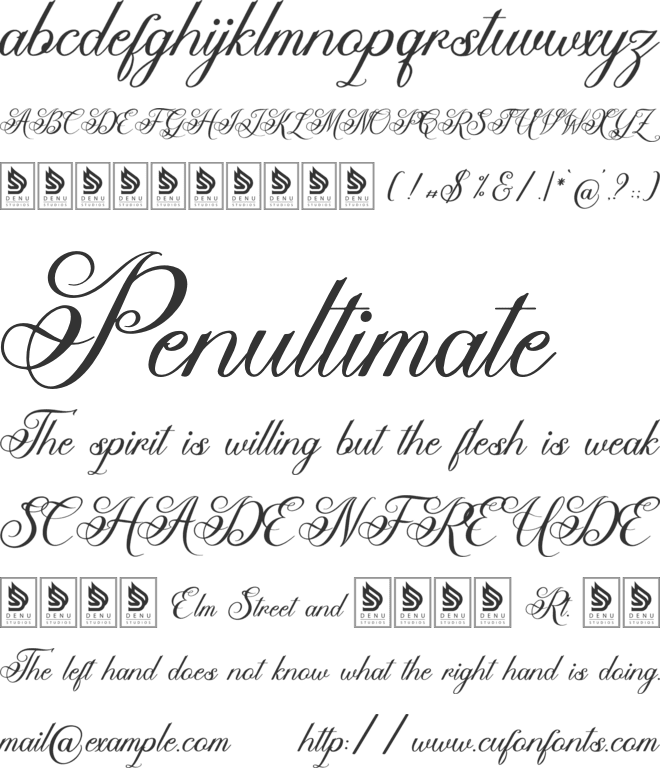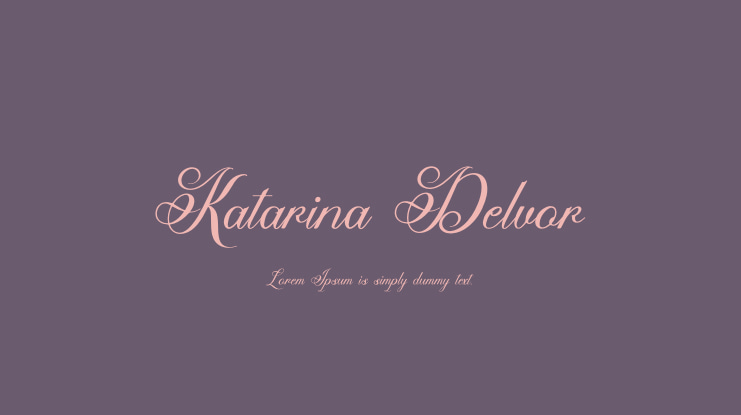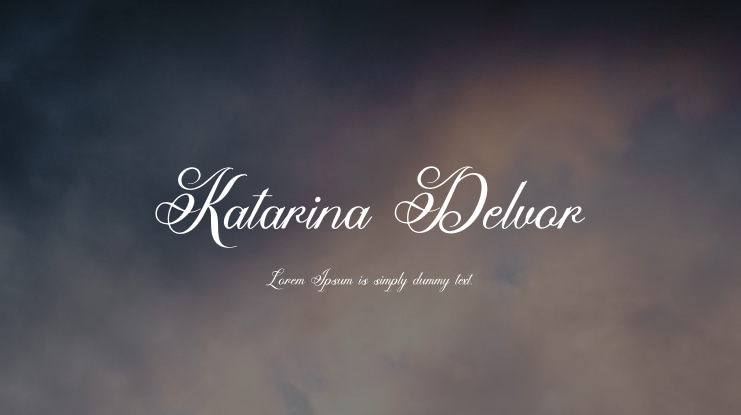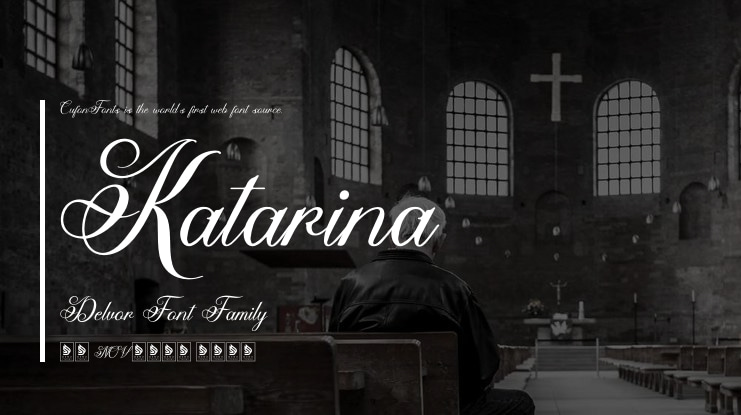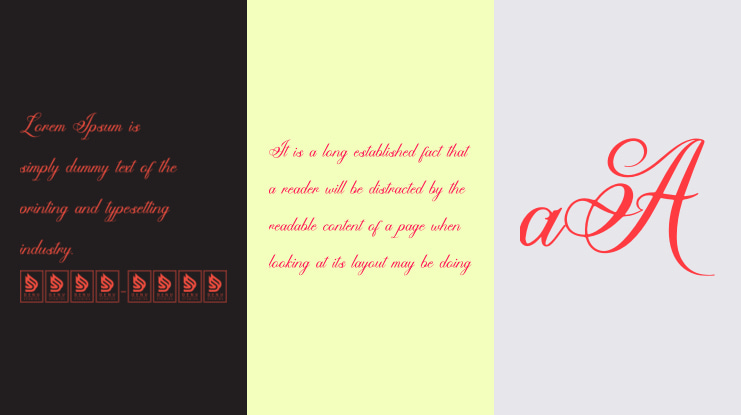
Katarina Delvor Font
Katarina Delvor | Modern Calligraphy Font is suitable for projects such as logos, branding, homeware designs, product packaging, mugs, quotes, posters, shopping bags, t-shirts, book covers, name cards, invitation cards, greeting cards, labels, photography, watermarks, special events, and all other projects that require a modern calligraphy font touch.